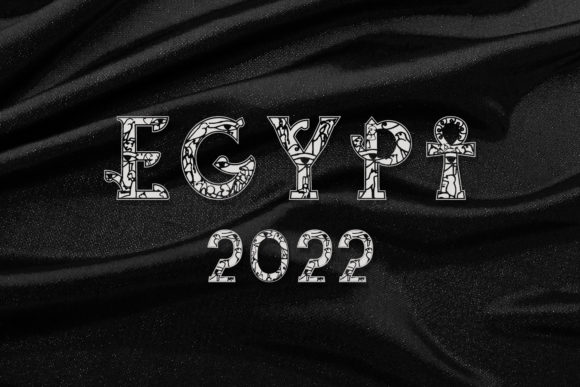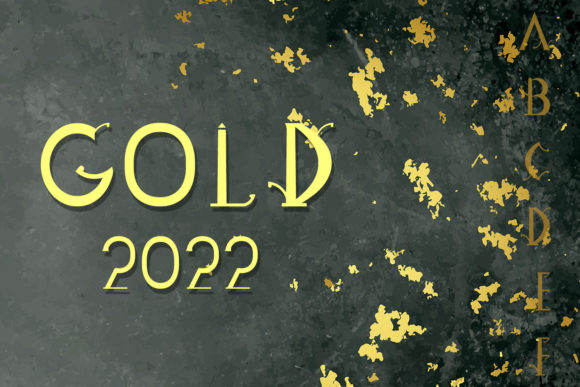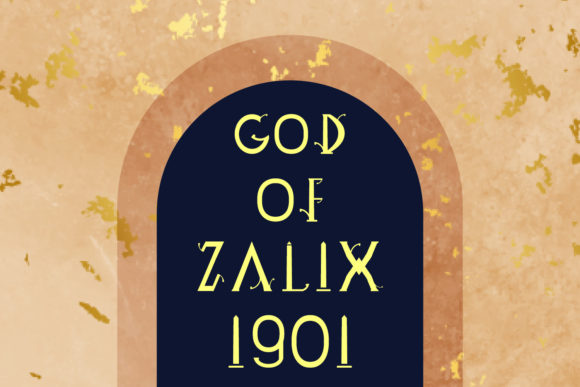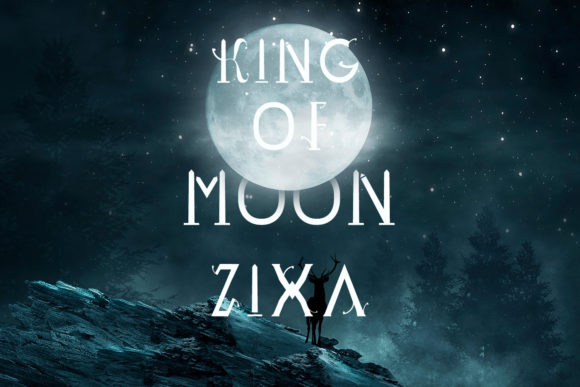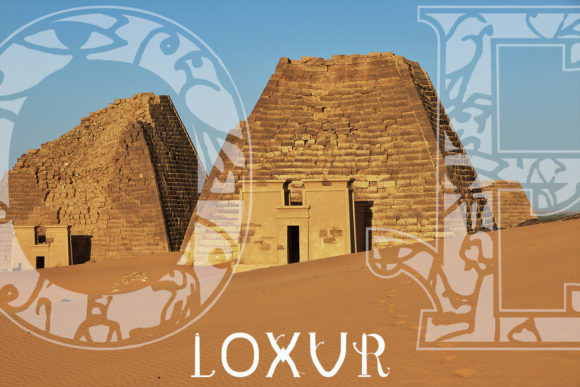
Unleash the Ancient Charm with Besho Pharaoh Font
Are you a designer, craftor, or enthusiast looking for a font that embodies the mystique and grandeur of ancient Egypt? Look no further than the Besho Pharaoh Font, an exquisite and exotic font family inspired by the rich artistic heritage of Egypt. In this article, we’ll dive into the world of Besho Pharaoh Font, exploring its features, uses, and the creative possibilities it offers.
The Inspiration Behind Besho Pharaoh Font
Besho Pharaoh Font draws its inspiration from the majestic and intricate art of ancient Egypt, characterized by hieroglyphics, monumental architecture, and ornate jewelry. The font’s creator aimed to capture the essence of this timeless art, translating it into a typographic masterpiece that would bring a touch of pharaonic elegance to any design project.
Key Features of Besho Pharaoh Font
- Aesthetic and Exotic Design: Besho Pharaoh Font boasts an intricate and ornate design, reminiscent of Egyptian hieroglyphics and ancient artifacts.
- Font Family Variety: The font comes in a family of styles, offering versatility and flexibility for various design applications.
- Highly Readable: Despite its ornate nature, Besho Pharaoh Font maintains a high level of readability, making it suitable for both headlines and body text.
- Multilingual Support: The font supports multiple languages, catering to a broad audience of designers and crafters worldwide.
Uses of Besho Pharaoh Font
Besho Pharaoh Font’s unique blend of ancient charm and modern readability makes it an excellent choice for a variety of design projects, including:
- Logos and Branding: Add a touch of exotic sophistication to your brand identity with Besho Pharaoh Font.
- Posters and Flyers: Create eye-catching promotional materials that stand out with the font’s distinctive style.
- Web Design: Enhance your website’s visual appeal with Besho Pharaoh Font, perfect for headings, titles, and emphasis text.
- Stationery and Packaging: Elevate your business cards, letterheads, and product packaging with a font that exudes luxury and refinement.
Tips for Using Besho Pharaoh Font Effectively
To make the most of Besho Pharaoh Font, consider the following design tips:
- Pair with Neutral Fonts: Combine Besho Pharaoh Font with simpler fonts to create visual contrast and hierarchy.
- Use for Headlines and Titles: Take advantage of the font’s ornate beauty for headlines, titles, and emphasis text.
- Experiment with Colors: Complement the font’s ancient feel with earthy tones, metallic colors, or rich jewel tones.
Besho Pharaoh Font is a treasure trove of creative possibilities for designers and crafters seeking to infuse their projects with a touch of ancient Egyptian elegance. With its aesthetic and exotic design, versatility, and readability, this font family is poised to become a go-to choice for those looking to add a dash of pharaonic flair to their work. Whether you’re designing a logo, website, or marketing materials, Besho Pharaoh Font is sure to transport your audience to a world of timeless beauty and sophistication.